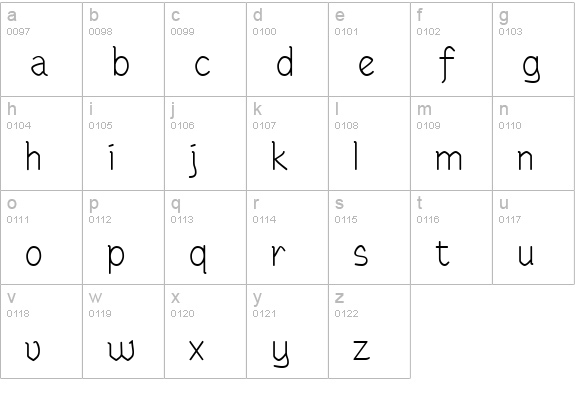
RundigPencil Normal Font Details
RundigPencil Normal is the standard, neutral variant in the RundigPencil typeface family \xE2\x80\x94 well suited to general body text, paragraphs, and standard typographic work.
RundigPencil Normal font is a charming and playful typeface that adds a touch of whimsy to any design project. With its rounded edges and casual appearance, this font is perfect for creating eye-catching headings, titles, and logos. The hand-drawn style of RundigPencil Normal font gives a unique and personal touch to any text, making it a versatile choice for a wide range of creative projects. What's even better is that RundigPencil Normal font is available for free download at FontsMarket.com. Whether you're a designer looking to spruce up your projects or someone who simply appreciates good typography, this font is sure to become a favorite in your collection. Don't miss out on the opportunity to add RundigPencil Normal font to your toolkit today!